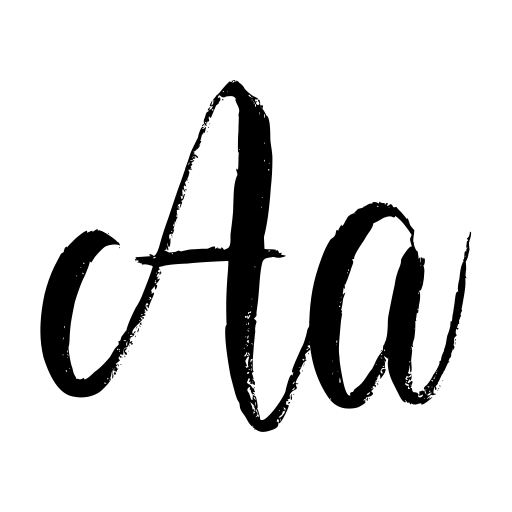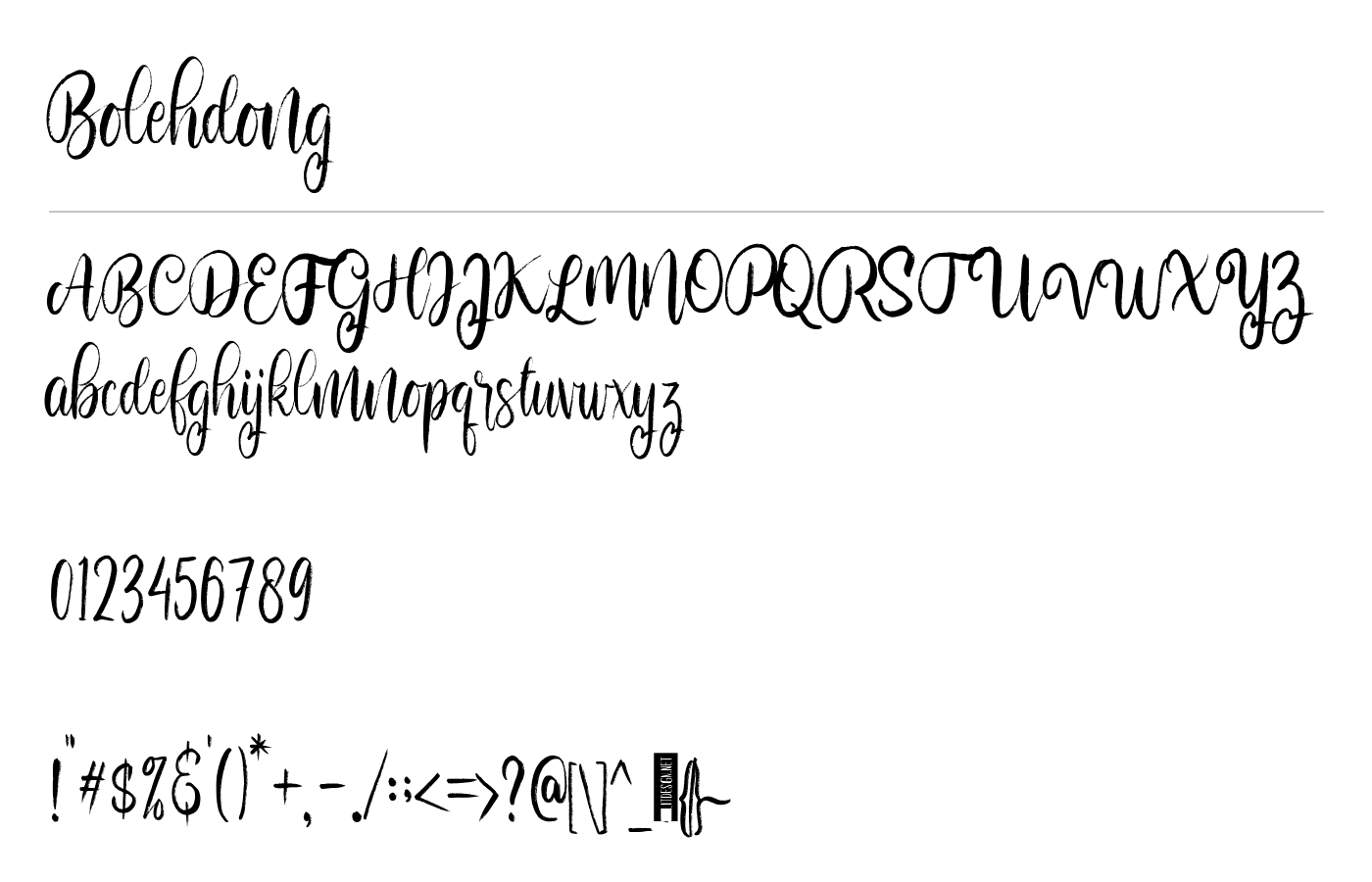
Bolehdong is a lively, handwritten script font with a playful and elegant feel, characterized by its slender, tall letterforms and smooth, flowing strokes. It combines a casual yet refined style, making it ideal for creative projects, branding, invitations, and packaging that seek a personal and charming touch. This font works best in display uses where its unique personality can stand out and add warmth and creativity.
Bolehdong Font
About Bolehdong Font